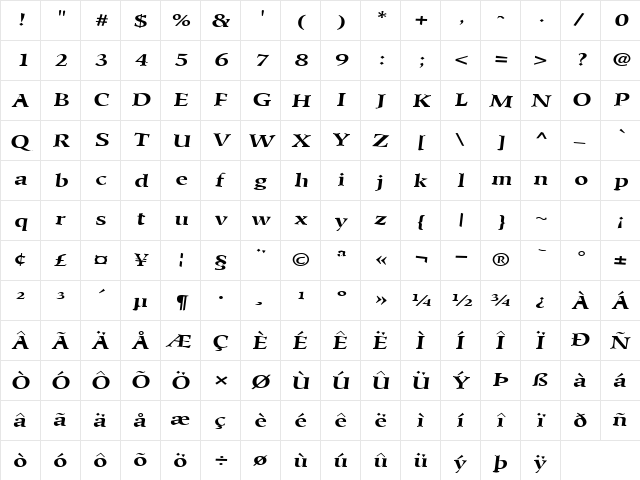
UnSnarl60 Regular
Complete UnSnarl60 Regular glyph index. Displaying only characters natively supported by UnSnarl60 Regular font.
Design Context for UnSnarl60
UnSnarl60 is a composed and adaptable typeface that performs quietly and consistently across a wide range of design contexts.
Pro Tip: Use UnSnarl60 in both headline and body roles to test its range before committing to a single application.